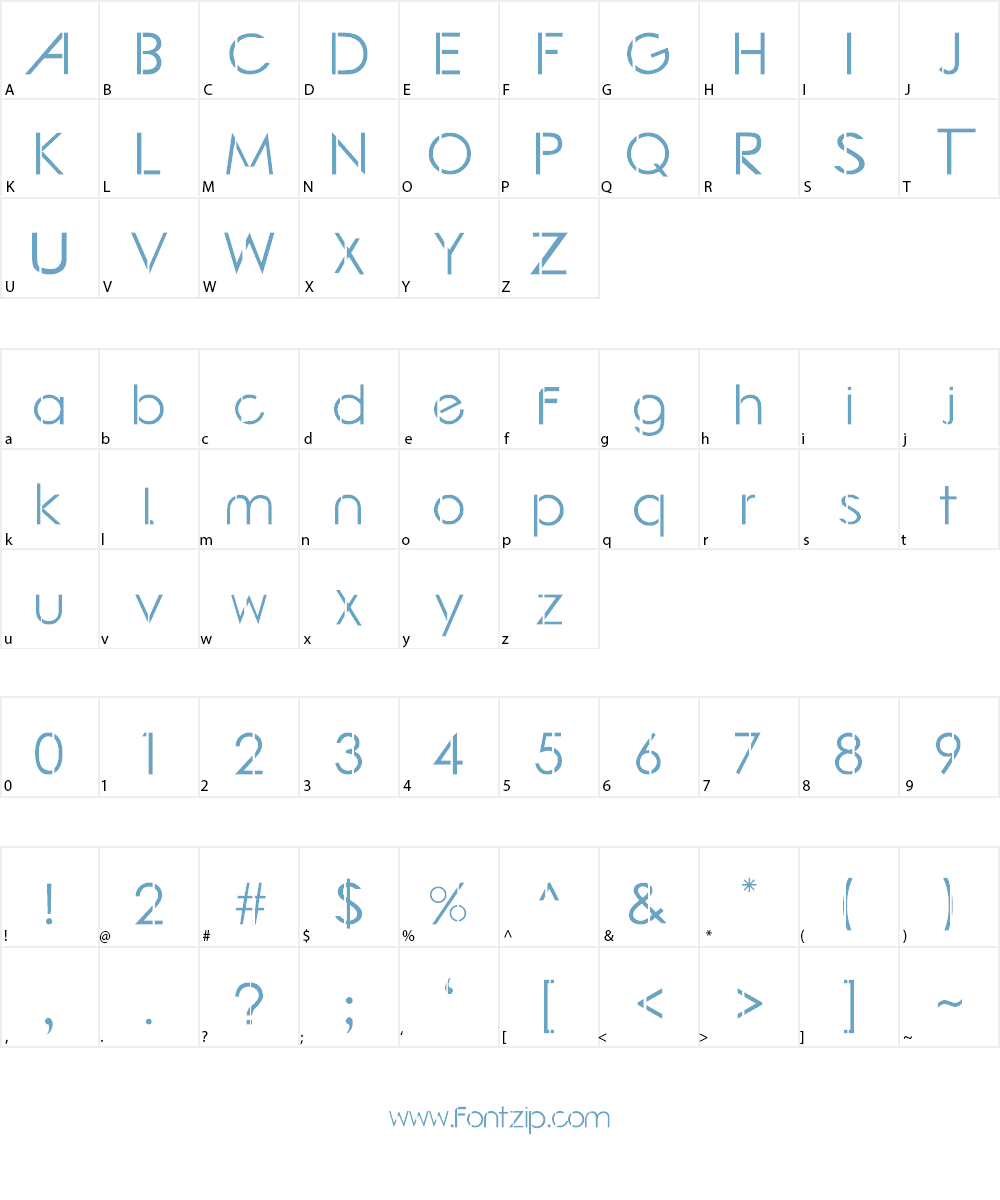
This typeface is a design LJ-Design Studios, based on the font "Century Gothic", for the purpose of being used in expressive and formal Juveniles designs, so it's not a font record for commercial use without permission of its author.
Esta fuente tipográfica es un diseño de LJ-Design Studios, basada en la fuente tipográfica “Century Gothic”, con el propósito de ser usada en diseños Juveniles expresivos y formales, por lo cual no es una fuente tipográfica acta para uso comercial sin el permiso de su autor.